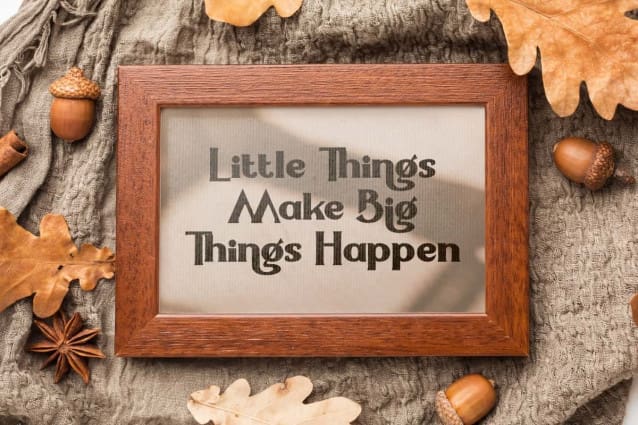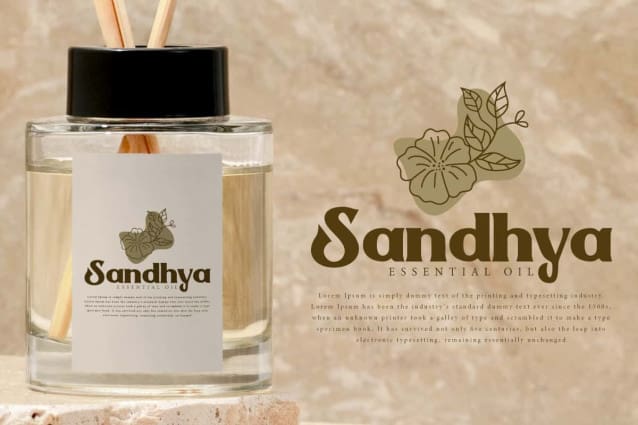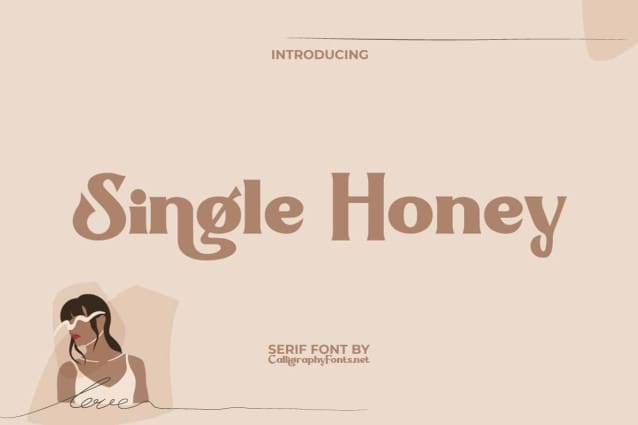
Single Honey Font
Single Honey Font is a strong yet stylish serif display font with a vintage feel but reborn with modern looks, making it a versatile and elegant high-contrast typeface. This serif type is prominent and evokes a sense of nostalgia but still fresh. Ideal for advertisements, banners, branding logo, flyer, greeting cards, heading, invitations, label stickers, quote post, tags, websites, and more.